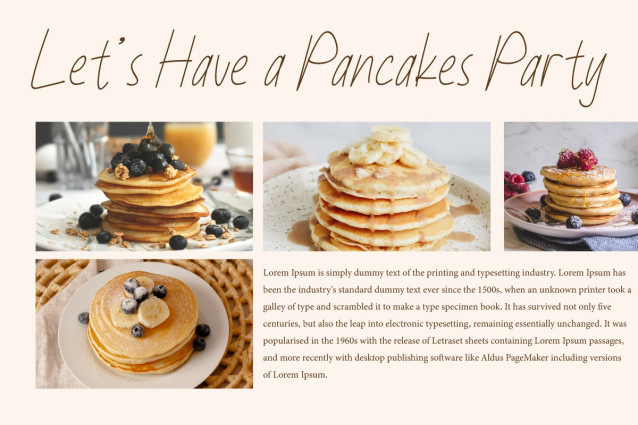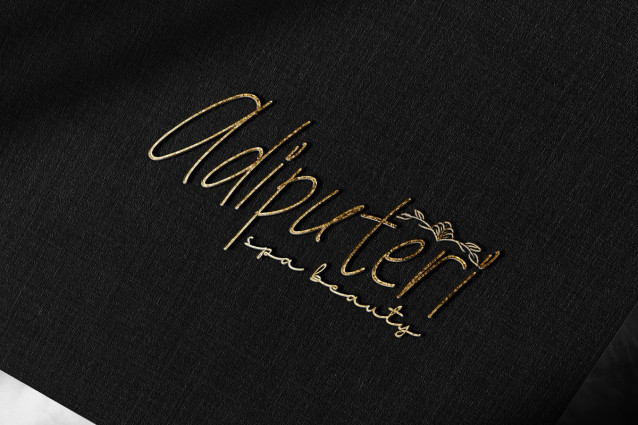
Going Remember Font
Going Remember Font is a charming script font display of hand drawn pen style. It allows you to add a personal touch to your designs and create lasting memories. Perfect for banners, blogs, covers, flyer, greeting card, invitations, logos, menus, mockup, quotes, sign board, stationery, sticker, template, title, watermark, website, and many more.
Going Remember Font naturally imitates the smoothness and authenticity of handwriting found in natural pen strokes. This product was created to help you make your digital images more beautiful with style. It can be used for accessories and gift, author, bakery, cafes, florist, graphic designer, home furniture, interior design, publisher, restaurant, spa salon, writer, and much more.
Going Remember Font comes with a complete set of Uppercase and Lowercase Basic Characters, Numbers, Punctuation, and Symbol. It is supported with multilingual characters and ready to use both on Windows machine or Mac with simple installations. It’s tested to work well in the Adobe Apps (Illustrator, Adobe InDesign, Adobe Photoshop) CorelDraw, and others. PUA Encode Characters means you can access all the characters easily – Fully accessible without additional design software.